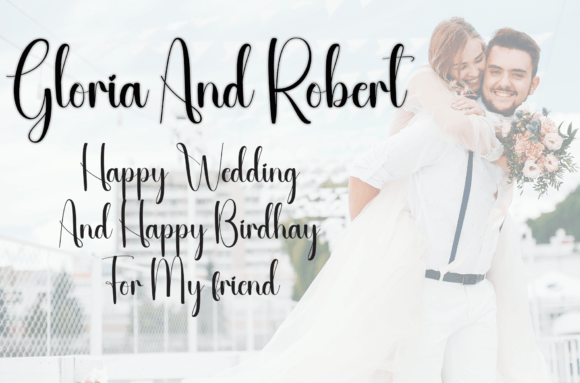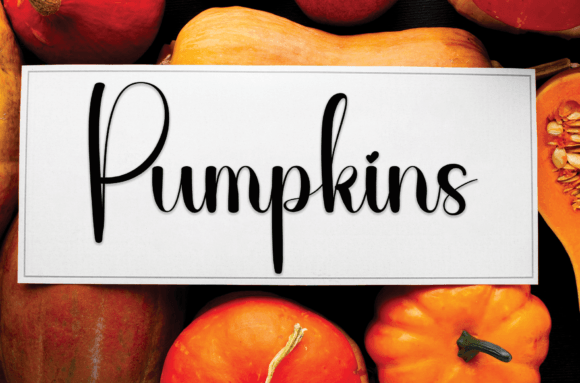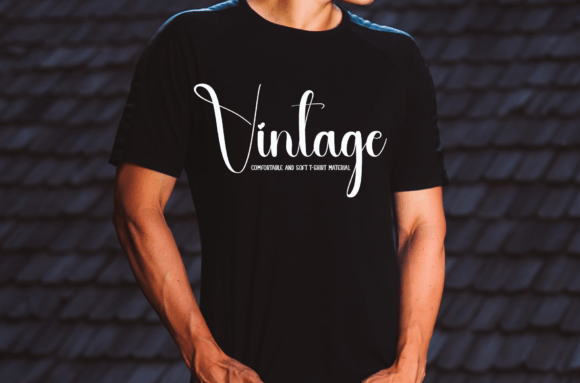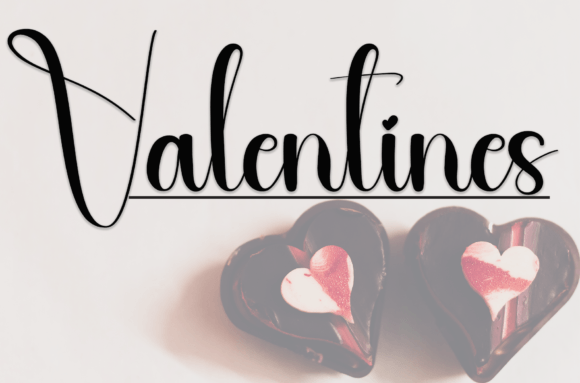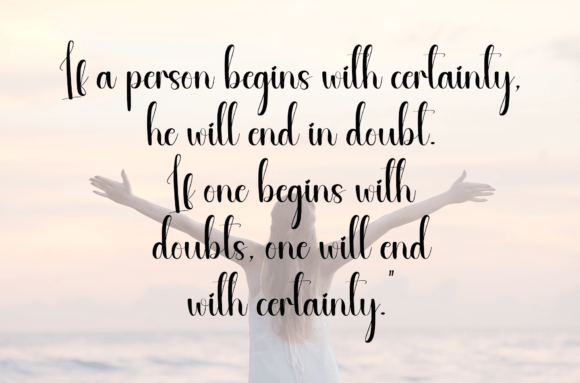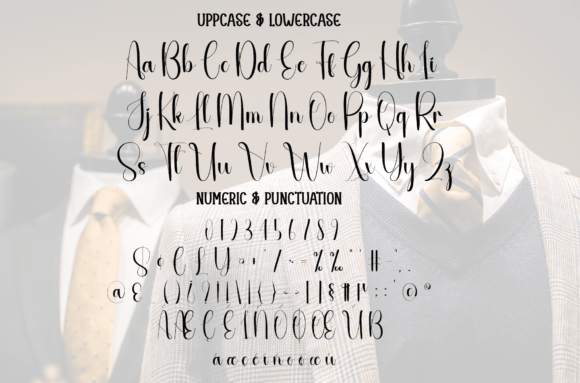
Introducing Exclusive Font: The Sweet and Friendly Handwritten Font for Your Creative Projects
Are you looking for a font that can add a touch of sweetness and friendliness to your designs? Look no further than Exclusive Font, a beautiful handwritten font that’s perfect for a variety of creative projects. In this article, we’ll take a closer look at Exclusive Font, its features, and how you can use it to elevate your designs.
What is Exclusive Font?
Exclusive Font is a sweet and friendly handwritten font that’s designed to bring a fresh and neat touch to your designs. It’s an ideal choice for designers and crafters who want to add a personal and playful touch to their work. Whether you’re creating wedding invitations, greeting cards, or any other design that needs a fun and approachable vibe, Exclusive Font is the perfect choice.
Key Features of Exclusive Font
So, what makes Exclusive Font so special? Here are some of its key features:
- Sweet and Friendly Design: Exclusive Font has a sweet and friendly design that’s perfect for creating designs that are approachable and inviting.
- Handwritten Style: This font has a beautiful handwritten style that’s perfect for adding a personal touch to your designs.
- Fresh and Neat: Exclusive Font is designed to be fresh and neat, making it perfect for designs that need a clean and modern look.
- Versatile: This font is versatile and can be used for a variety of design projects, from wedding invitations to greeting cards and more.
Use Cases for Exclusive Font
So, how can you use Exclusive Font in your designs? Here are some use cases to get you started:
- Wedding Invitations: Exclusive Font is perfect for creating beautiful and elegant wedding invitations that set the tone for the big day.
- Greeting Cards: This font is ideal for creating greeting cards for special occasions, such as birthdays, anniversaries, and holidays.
- Social Media Graphics: Exclusive Font can be used to create social media graphics that are fun, approachable, and engaging.
- Branding and Packaging: This font can be used for branding and packaging designs that need a friendly and approachable touch.
Tips for Using Exclusive Font
Here are some tips for using Exclusive Font in your designs:
- Pair it with Other Fonts: Exclusive Font can be paired with other fonts to create a unique and interesting design.
- Use it for Headlines and Body Text: This font can be used for both headlines and body text, making it a versatile choice for your designs.
- Experiment with Colors: Exclusive Font looks great in a variety of colors, so don’t be afraid to experiment and find the perfect color scheme for your design.
In conclusion, Exclusive Font is a beautiful and versatile handwritten font that’s perfect for designers and crafters who want to add a sweet and friendly touch to their designs. With its fresh and neat design, this font is ideal for a variety of creative projects, from wedding invitations to greeting cards and more. Whether you’re a seasoned designer or just starting out, Exclusive Font is a great choice for anyone looking to add a personal and playful touch to their work.